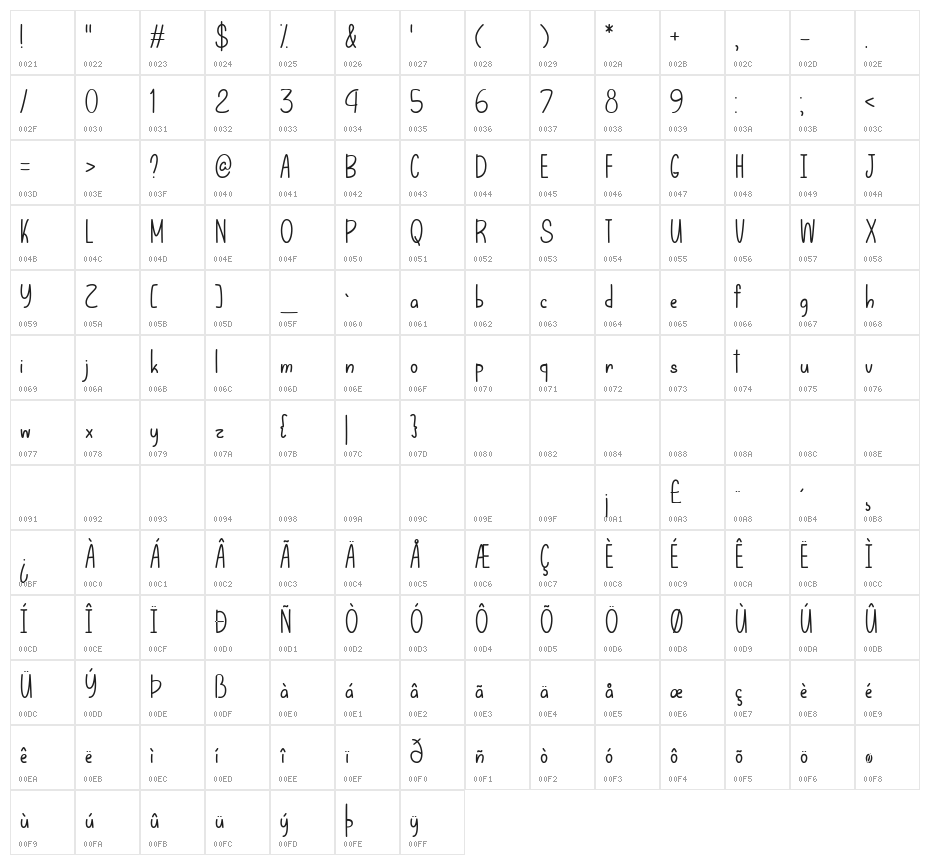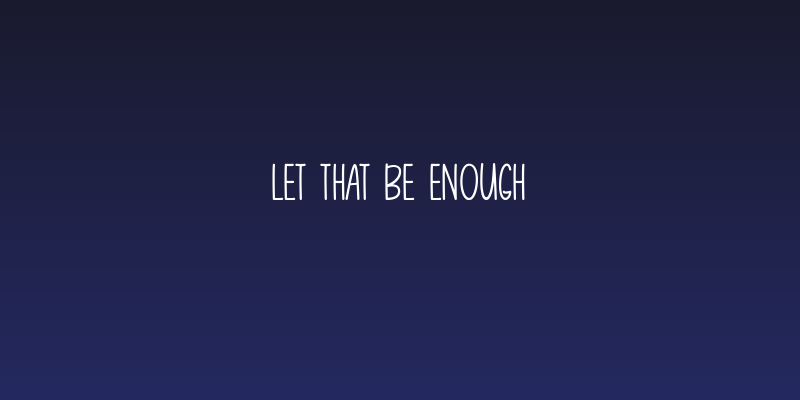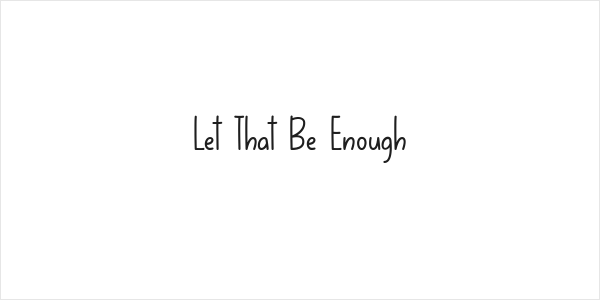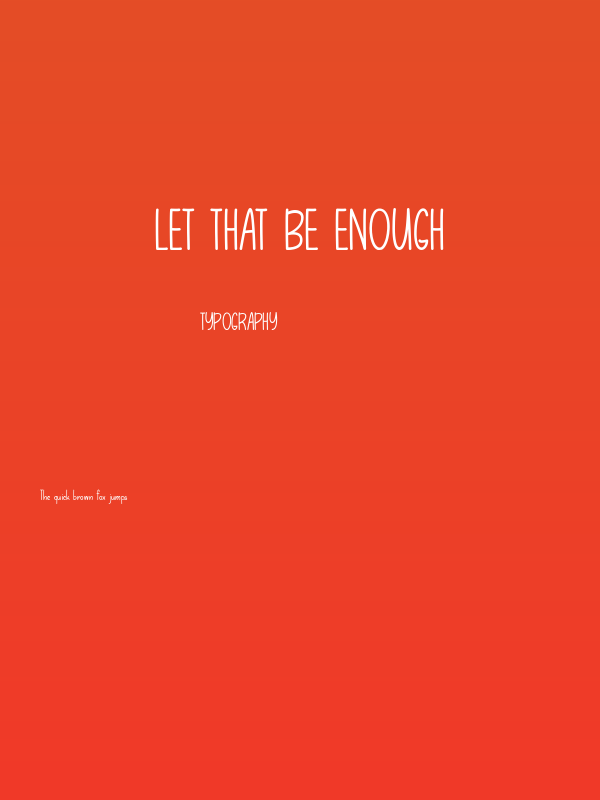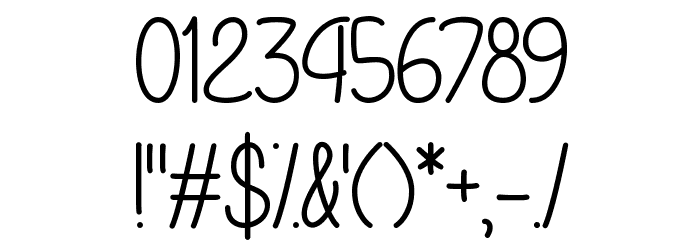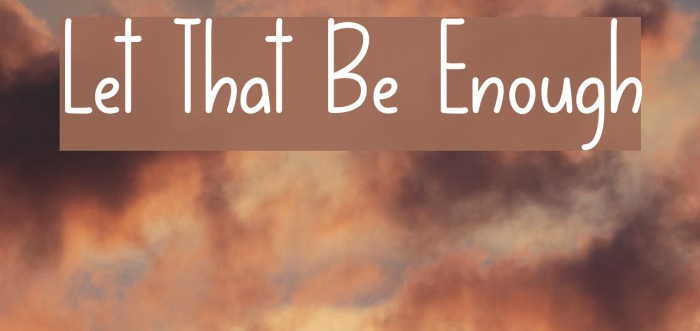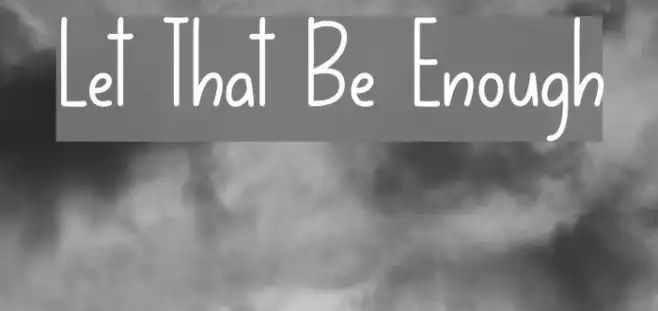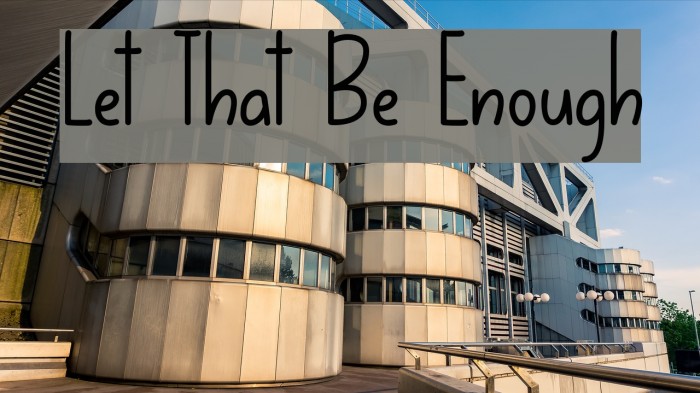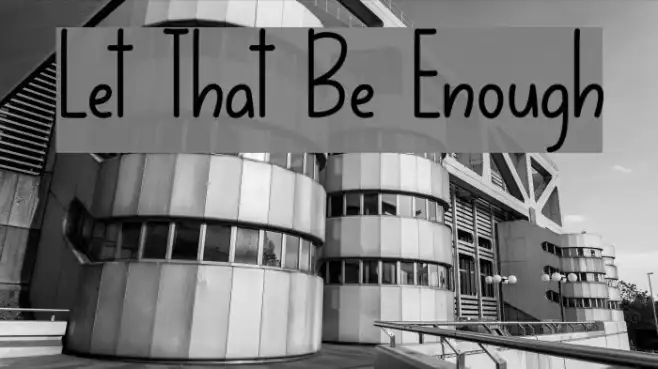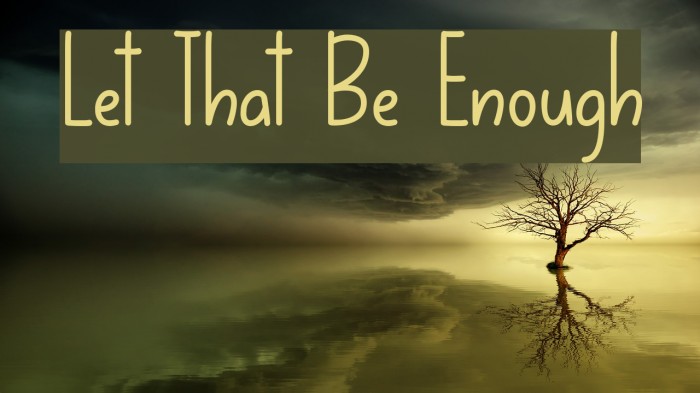
Let That Be Enough Font
Let That Be Enough Description
This font features a playful and casual handwritten style, characterized by its smooth curves and slightly elongated letterforms. The uppercase letters are tall and narrow, while the lowercase letters maintain a consistent flow with a slight slant, adding to the informal feel. The numerals are rounded and complement the overall aesthetic, making them easy to read. Special characters are well-integrated, maintaining the whimsical nature of the font. The strokes are consistent in weight, providing a harmonious look across all characters.
| Overall Style | Casual |
| Use Case | Logos, Invitations, Greeting Cards |
| Proposed Projects | Ideal for greeting cards, children's books, playful branding, and casual invitations. |